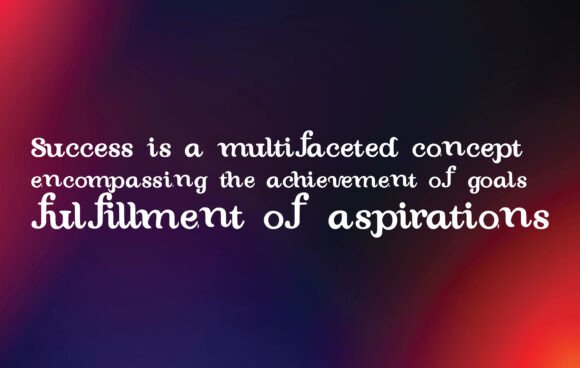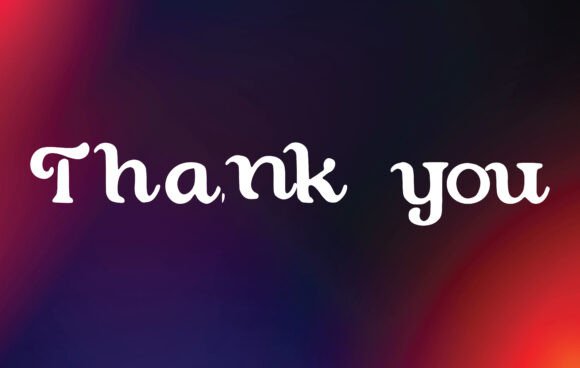
Discover the Beauty of Enzo Font: Elevate Your Designs with this Stunning Handwritten Font
Are you tired of using the same old fonts in your designs? Look no further than Enzo Font, a lovely and beautiful handwritten font that has the potential to take your creative ideas to the highest level. With its unique and elegant style, Enzo Font is the perfect choice for creating eye-catching logos, branding, and quotes that will leave a lasting impression on your audience.
The Characteristics of Enzo Font
Enzo Font is a carefully crafted handwritten font that boasts a range of characteristics that make it stand out from the crowd. Its flowing lines and delicate curves give it a sense of elegance and sophistication, making it perfect for designs that require a touch of refinement. The font’s unique style is also highly legible, making it easy to read and understand, even at small sizes.
Why Choose Enzo Font?
So why choose Enzo Font over other fonts? Here are just a few reasons why this stunning handwritten font is the best choice for designers and crafters:
• Unique and Eye-Catching: Enzo Font’s unique style is sure to grab attention and make your designs stand out from the crowd.
• Highly Versatile: Whether you’re creating a logo, branding, or quote, Enzo Font is highly versatile and can be used in a wide range of design applications.
• Elegant and Sophisticated: Enzo Font’s elegant and sophisticated style makes it perfect for designs that require a touch of refinement.
• Easy to Read: Despite its unique style, Enzo Font is highly legible and easy to read, even at small sizes.
How to Use Enzo Font in Your Designs
Using Enzo Font in your designs is easy. Here are a few tips to get you started:
• Pair it with Other Fonts: Enzo Font pairs well with other fonts, so don’t be afraid to experiment with different combinations to create a unique look.
• Use it for Headings: Enzo Font is perfect for headings and titles, where its unique style can really make an impact.
• Add a Personal Touch: Enzo Font’s handwritten style adds a personal touch to your designs, making them feel more approachable and relatable.
The Benefits of Using Enzo Font for Designers and Crafters
Enzo Font offers a range of benefits for designers and crafters, including:
• Increased Creativity: With Enzo Font, you can take your creative ideas to the next level and create designs that truly stand out.
• Improved Brand Recognition: Enzo Font’s unique style can help to improve brand recognition and make your designs more memorable.
• Easy to Use: Enzo Font is easy to use and can be easily integrated into your design workflow.
In conclusion, Enzo Font is a stunning handwritten font that has the potential to elevate your designs to new heights. With its unique and elegant style, Enzo Font is perfect for creating eye-catching logos, branding, and quotes that will leave a lasting impression on your audience. Whether you’re a designer or crafter, Enzo Font is a must-have font that will help you to take your creative ideas to the next level.